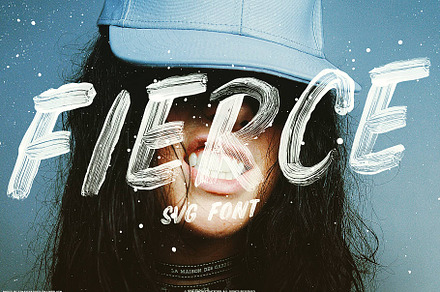
Display font Fierce
A display font with an assertive character, drawn heavy and tight for maximum presence at large sizes.
Display faces are judged entirely on impact, since they are rarely set below a size where legibility could become a concern.
- Heavy tight display proportions
- Multilingual support
Where it works
- Poster and event headlines
- Music and merch graphics
- Packaging and signage
- Social and campaign design